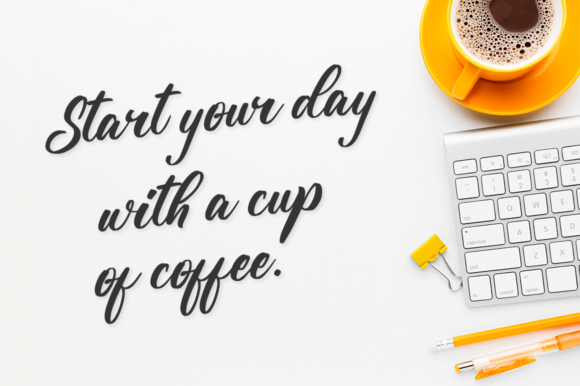
About Yellow Sunflower Font
Yellow Sunflower is a sweet, all round and flexible handwritten font. Warm, romantic and jolly, this font will turn each of your project ideas into real works of art. Have fun with this beautiful font and explore its endless variations.